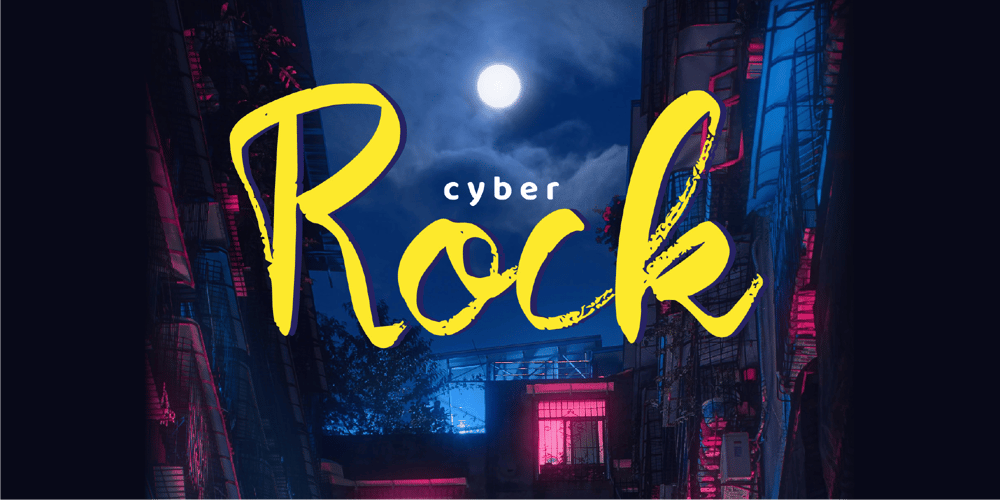
Cyber Rock
Cyber Rock font
Cyber Rock Font Family was designed by Wahyu Aji Prasetyo and published by WAP Type. Cyber Rock contains 1 styles and family package options. Cyber rock Brush Scriptbold, cool, cursive, design, editorial, grunge, handpaint, handwritten, ink, letter, logo, logotype, magazine, marker, modern, paint, ragged, ROUGH BRUSH, script, sign, style, stylish, swash, tag tagging, textured, trend, trendy, urban, vintage, writtenhandwritten brush script dry brush cursive font with rough and dynamic look. Ideal for quotes, posters, branding, packaging, illustration, social media.